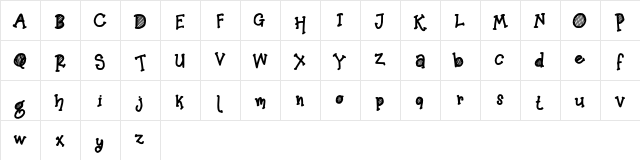
Green Walk FREE Regular
Design Context for Green Walk FREE Typeface
Green Walk FREE is a composed and adaptable typeface that performs quietly and consistently across a wide range of design contexts.
Pro Tip: Pair Green Walk FREE with a font of contrasting weight or personality to build a more expressive typographic hierarchy.